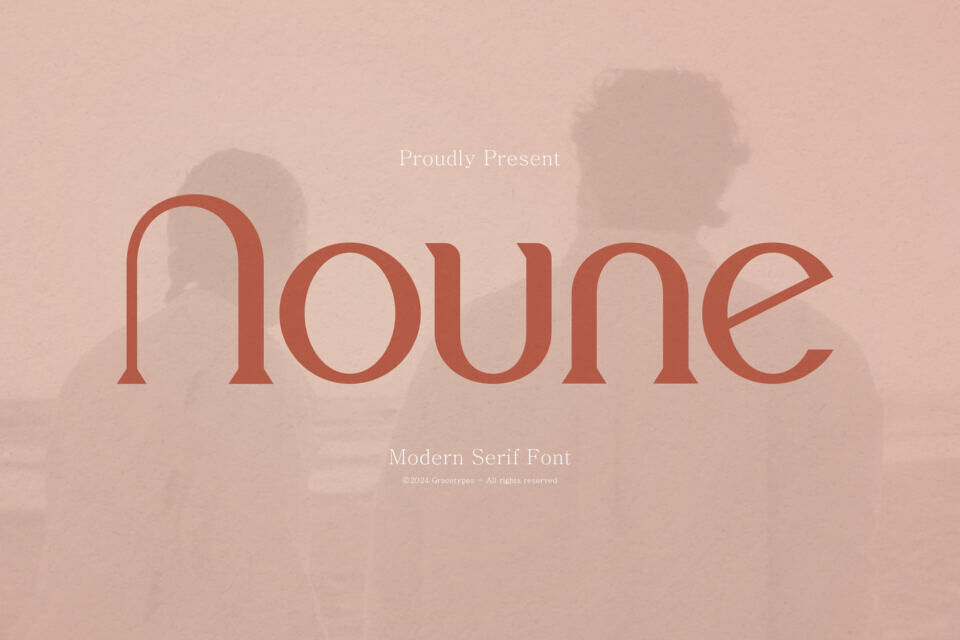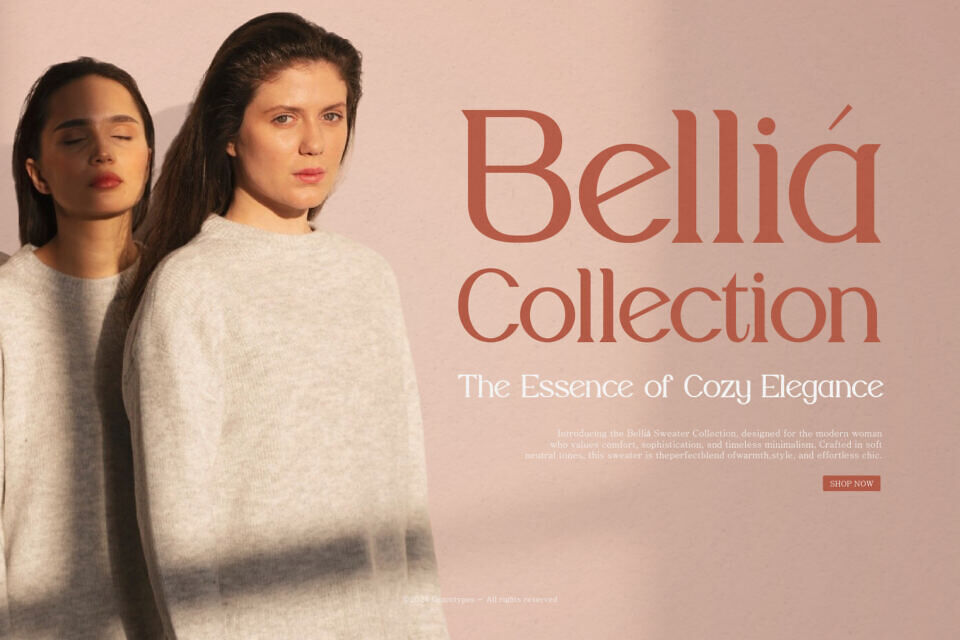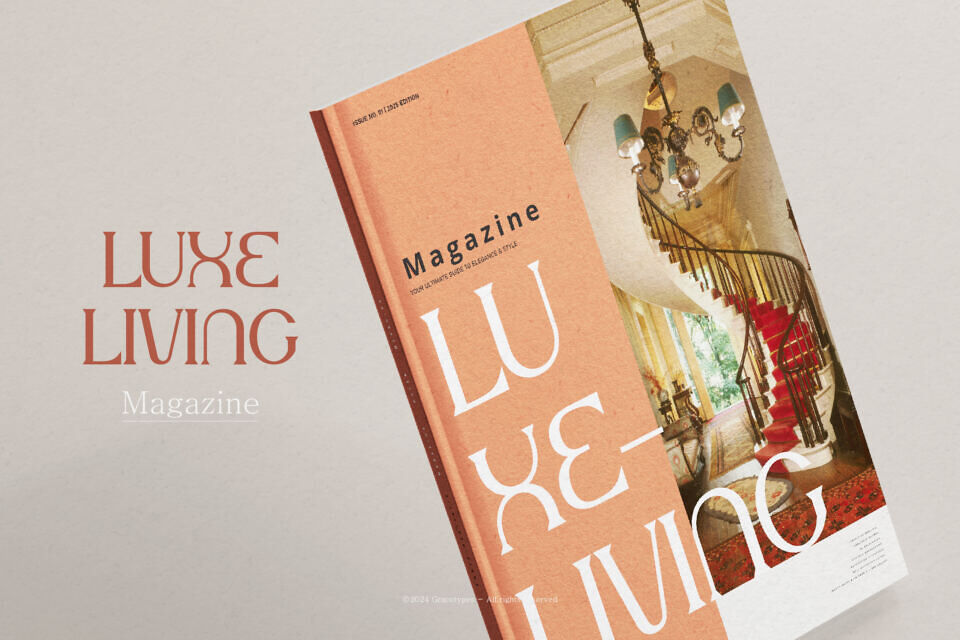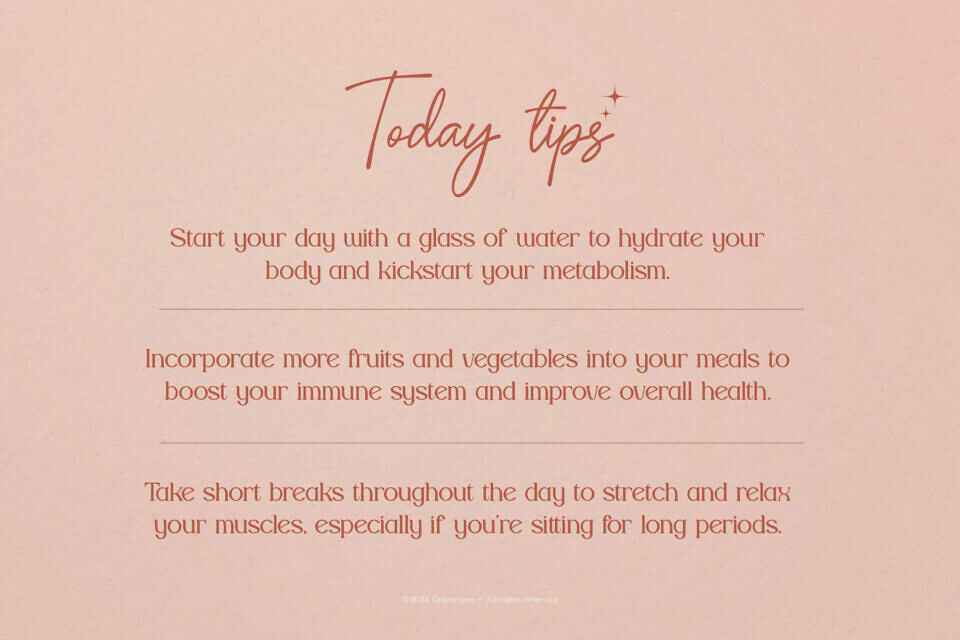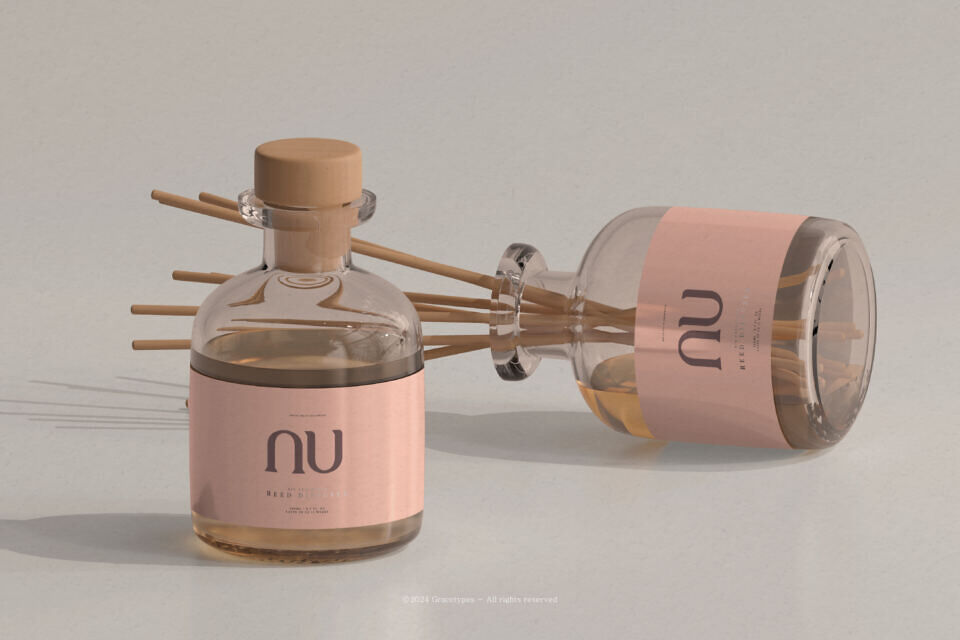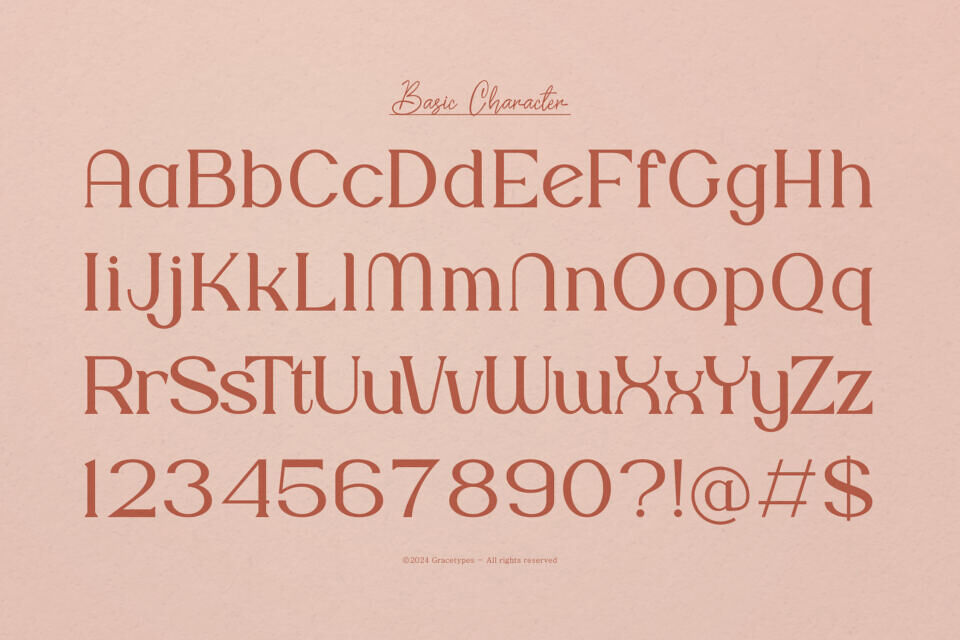
Noune Font
Noune is an elegant serif font, suitable for any projects such as: logos, branding projects, homeware designs, product packaging, mugs, quotes, posters, shopping bags, t-shirts, book covers, name card, invitation cards, greeting cards, label, photography, watermark, special events, and all your other lovely projects that need a Elegant Serif taste.